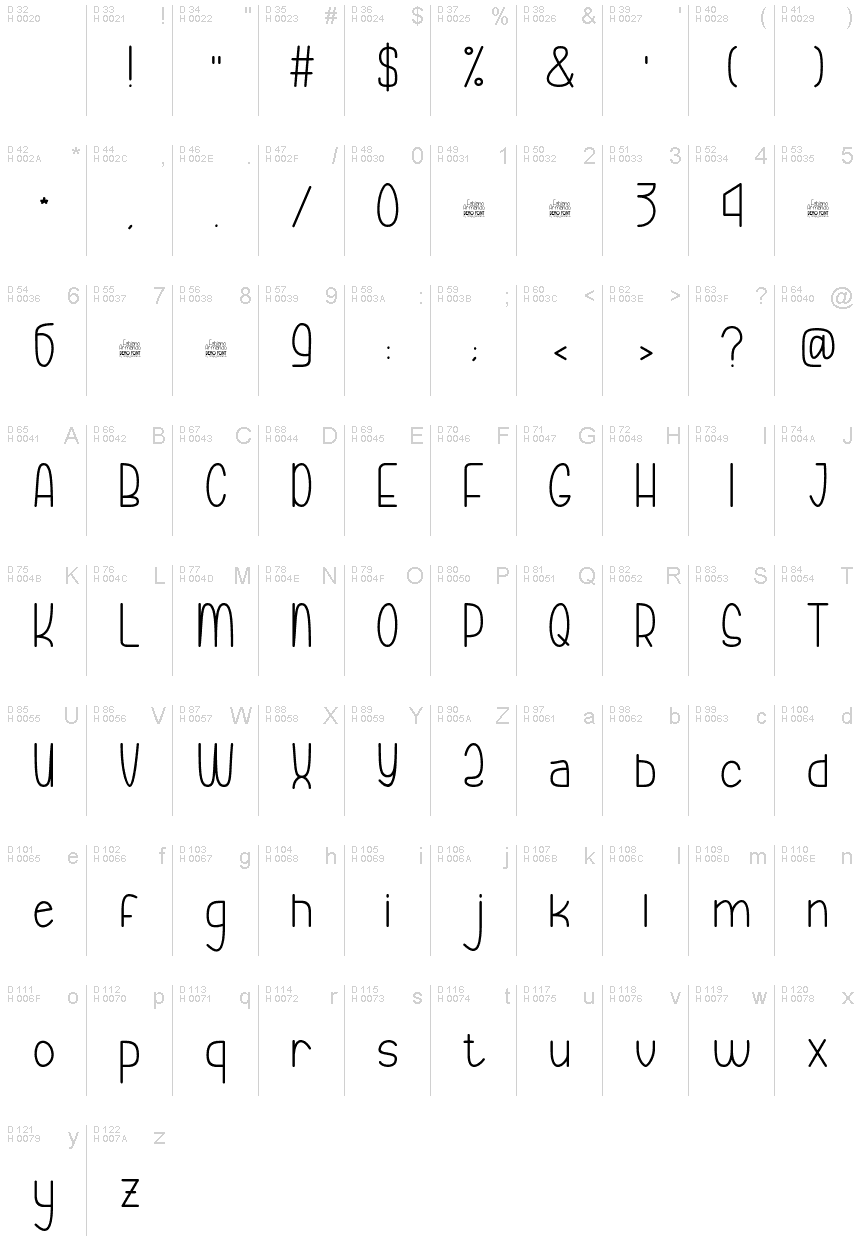
Fabiano Armando Extra Light
Embrace the delicate sophistication of Fabiano Armando Extra Light, a font that exudes an airy grace with its handwritten style and semi-condensed width. Crafted by bringtypestudio.co, this typeface delicately balances the personal touch of handwriting with the precision of digital design.
The extra-light weight lends a whispery, ethereal quality to the text, making it an excellent choice for designs that require a nuanced touch. The gentle curves and slender forms evoke modern elegance while maintaining legibility. Its subtle charm is perfect for upscale branding, elegant invitations, or any creative project where a hint of bespoke finesse is desired.
Discover how Fabiano Armando Extra Light can infuse your work with its understated yet captivating presence, elevating your visuals with its unique blend of contemporary style and handwritten warmth.